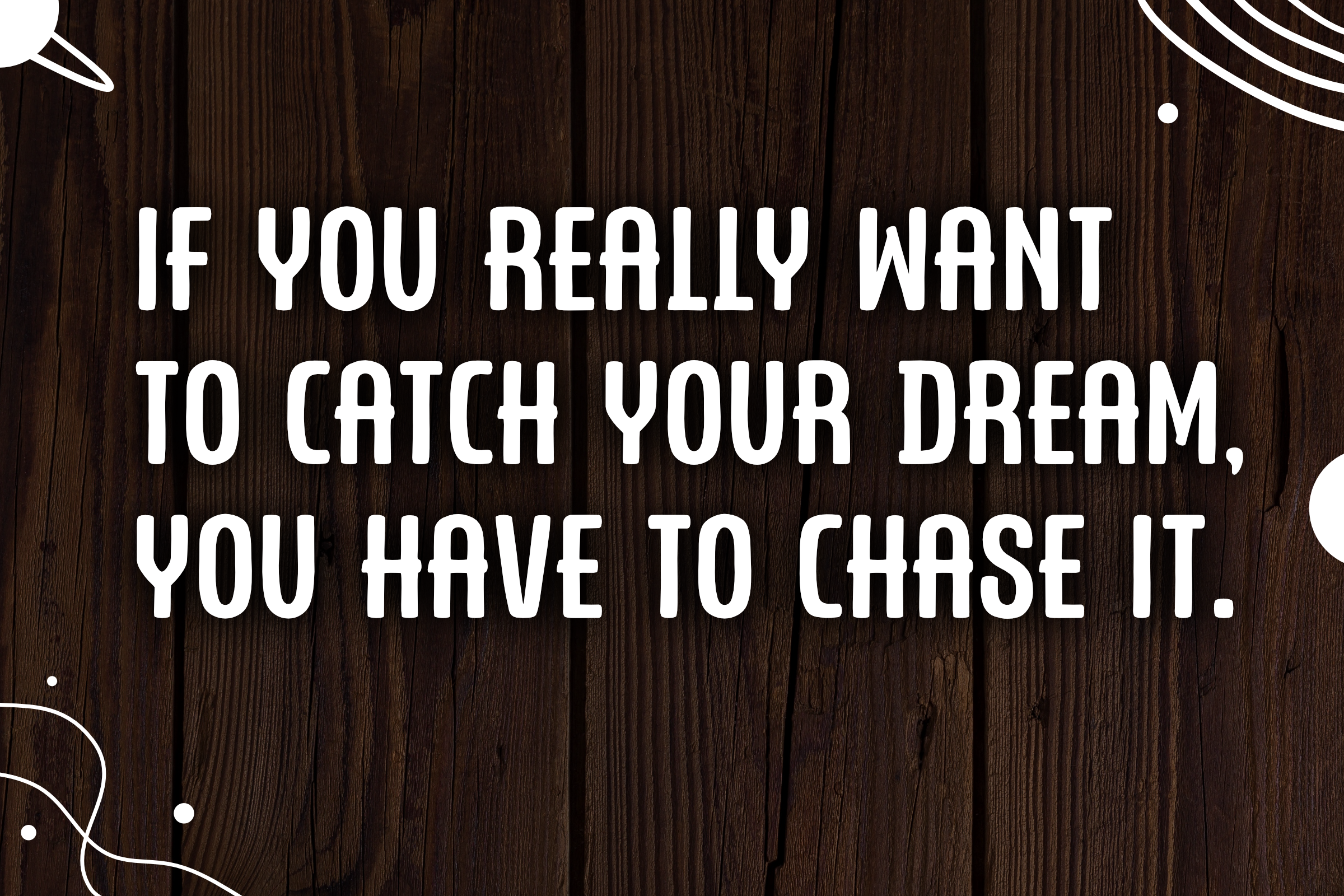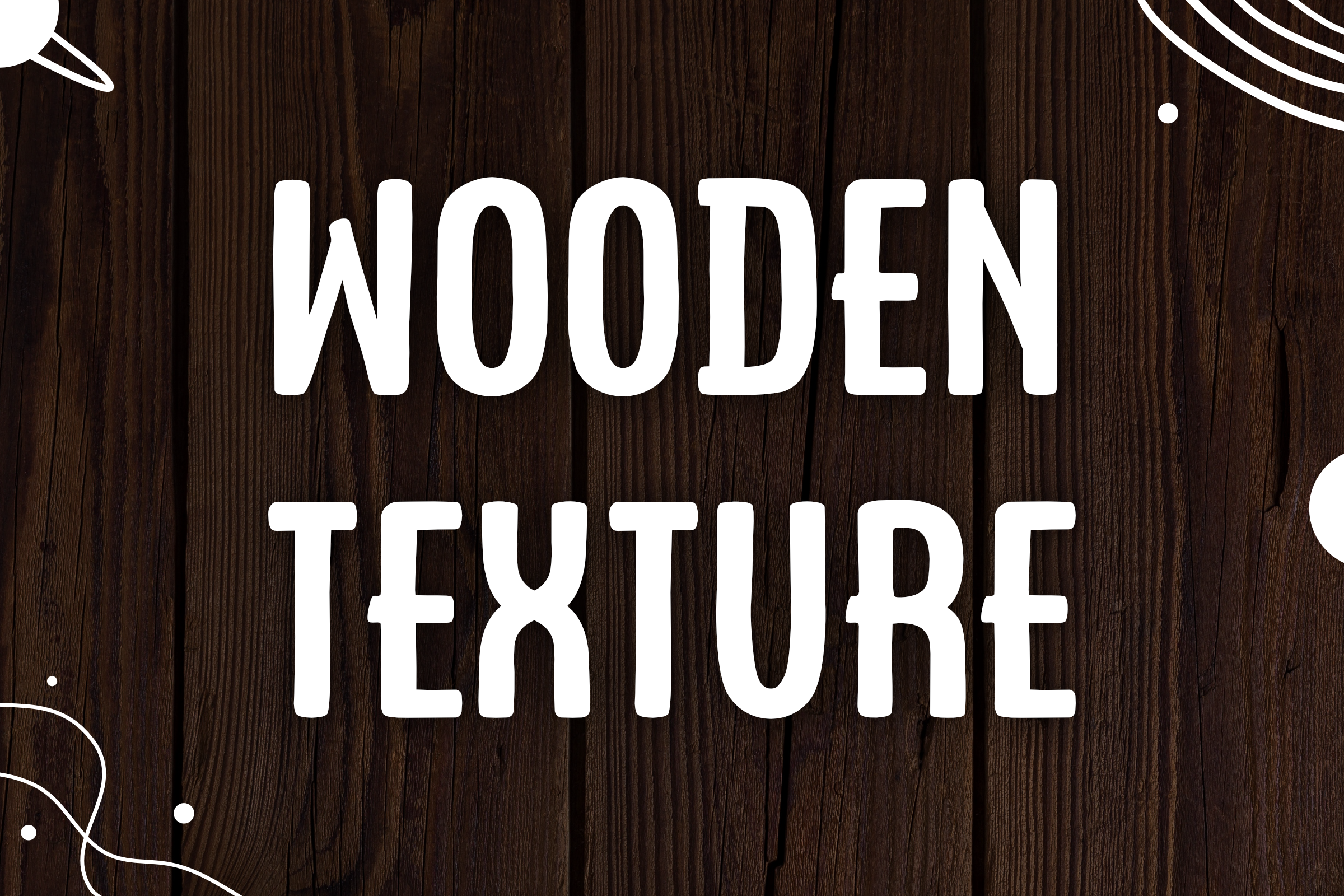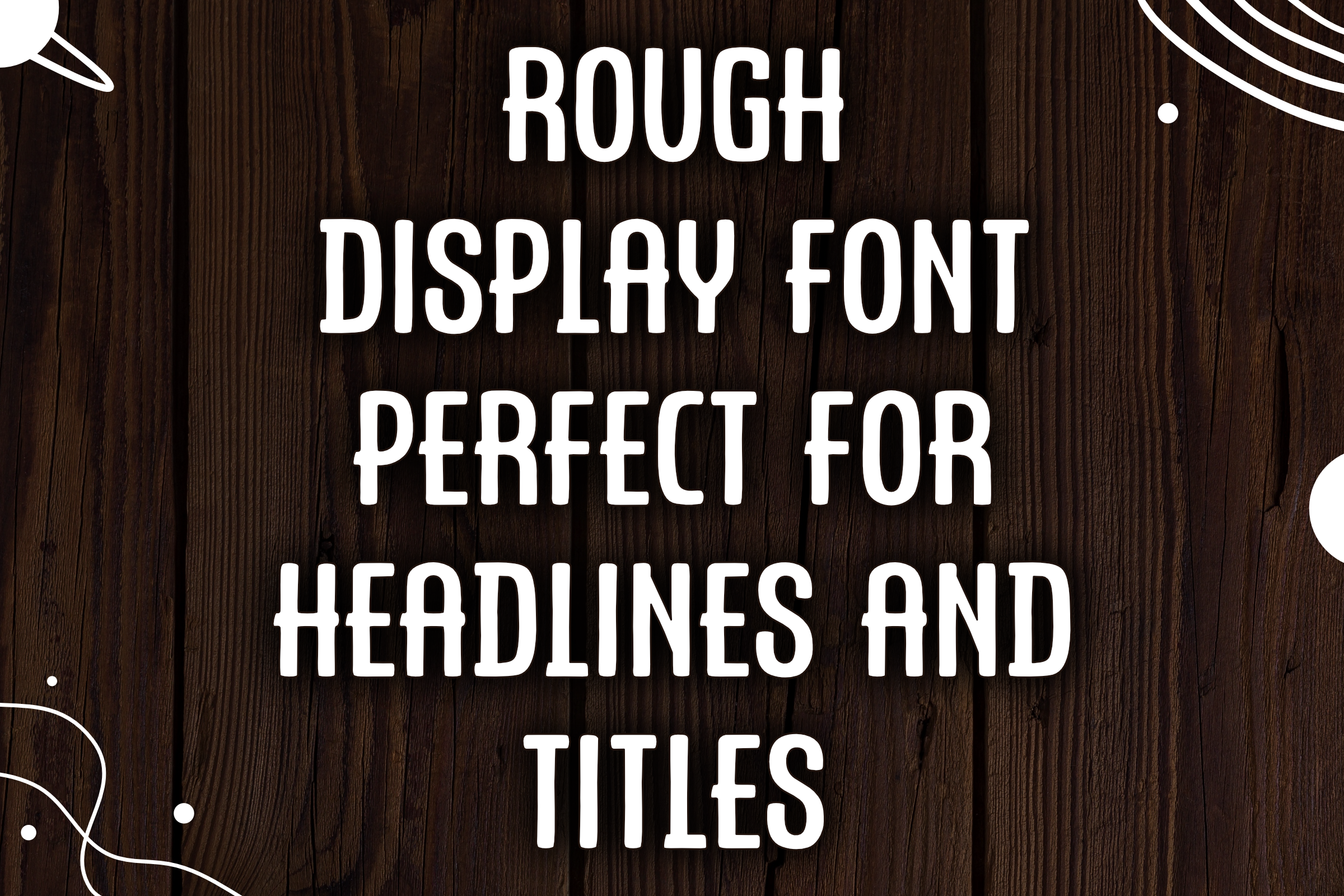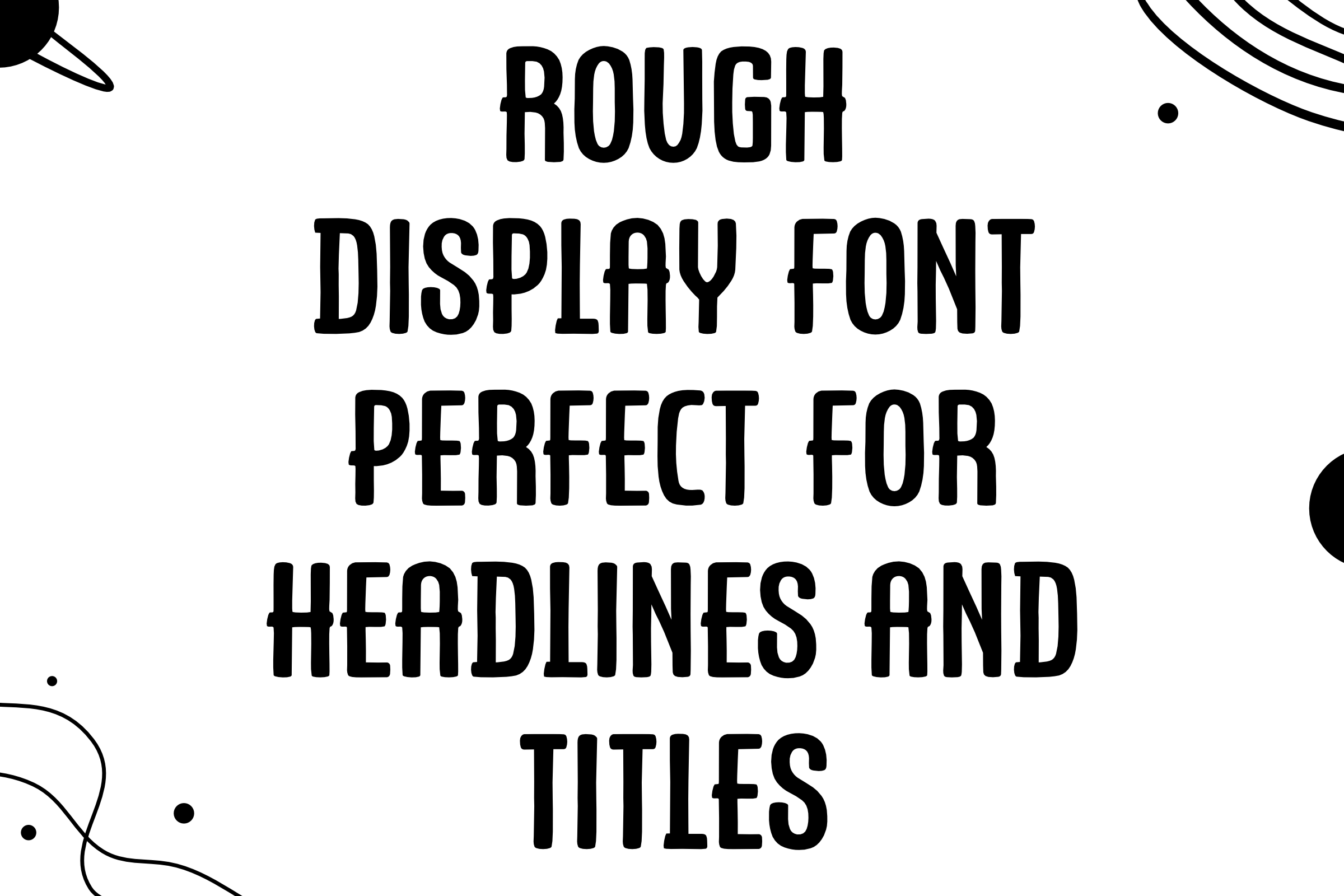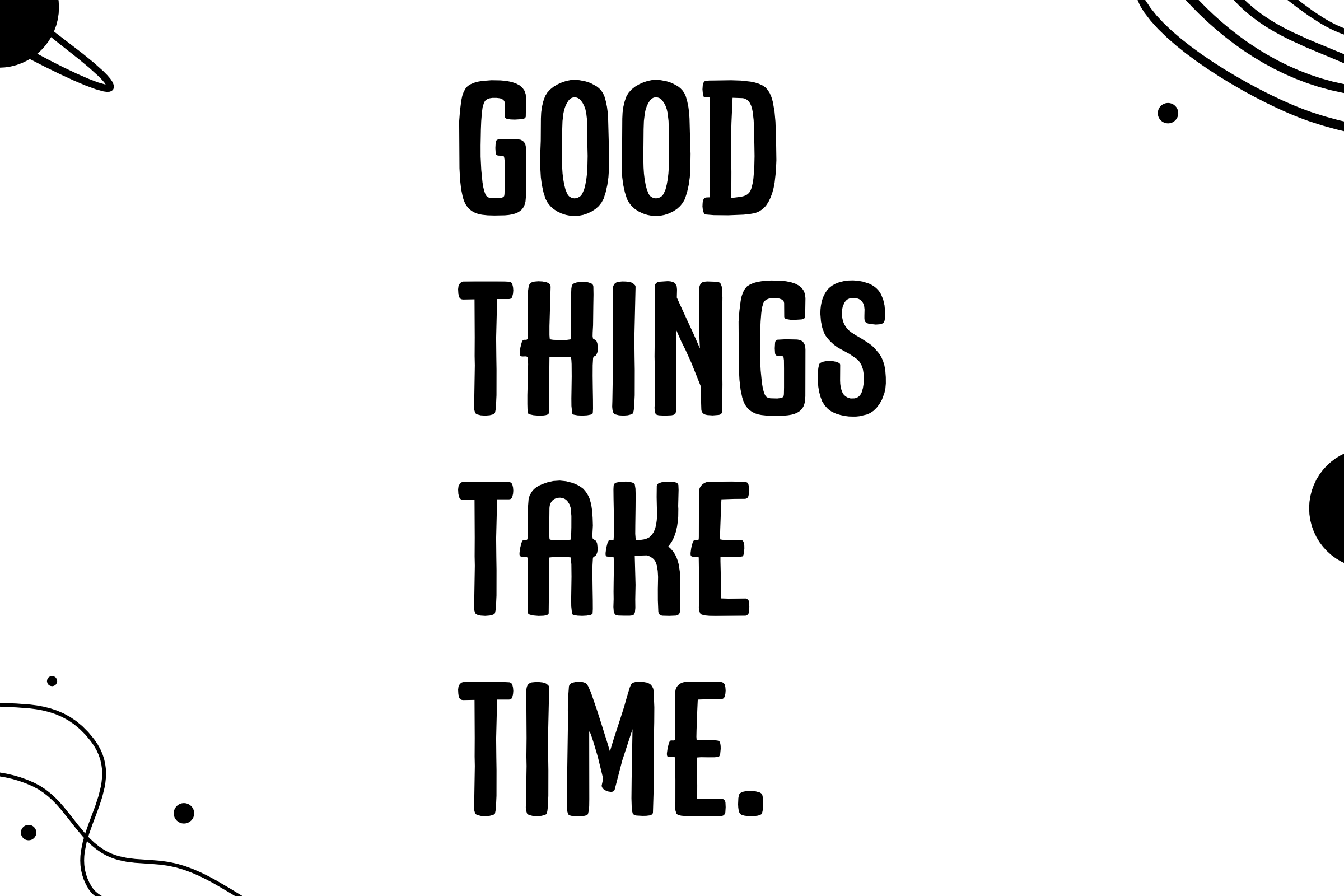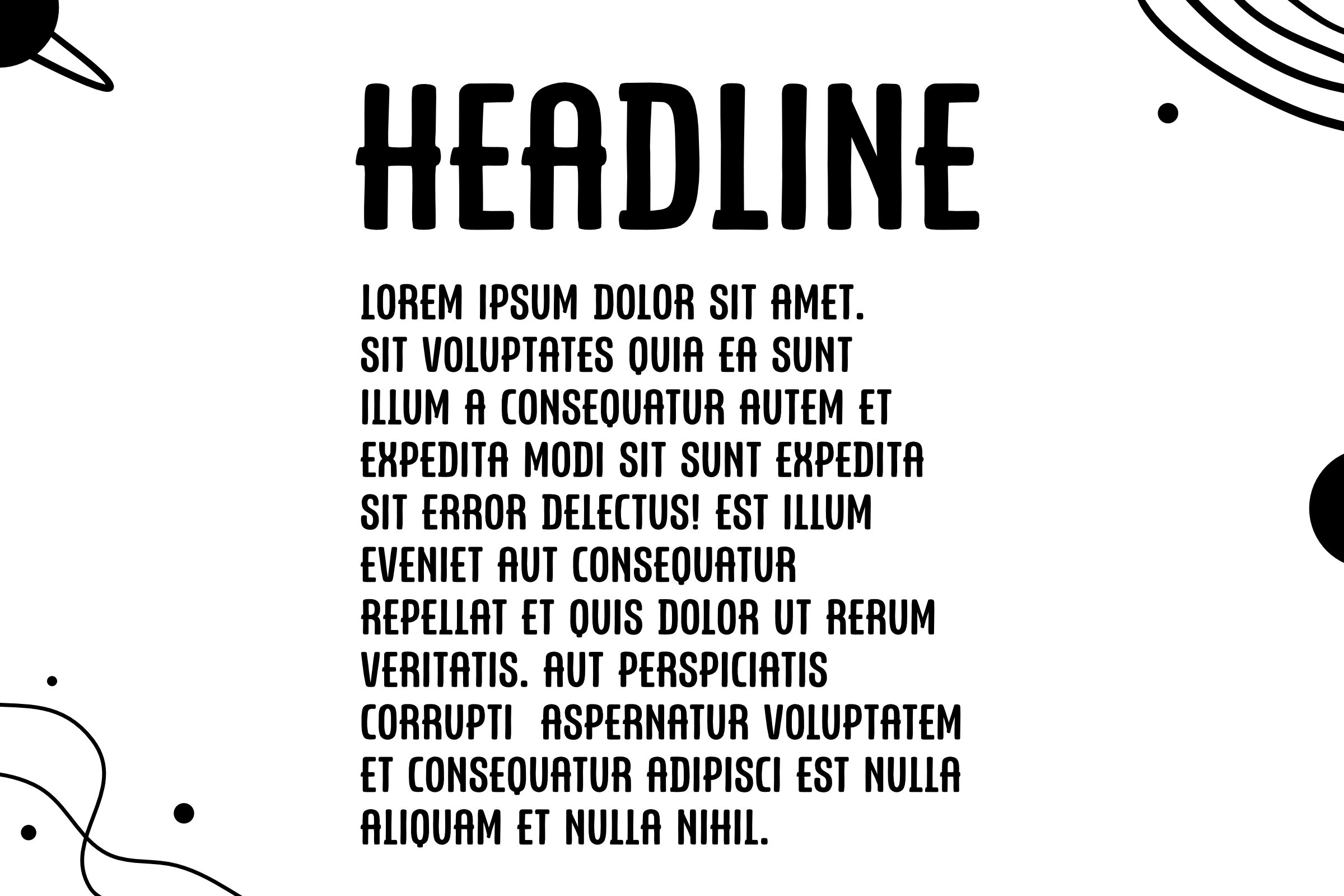
Stellar Rough Display Font by Radesigns21 | Creative Market
Stellar is a rough display font intended for creating bold and raw headlines and titles. It can be used in projects that need to achieve an unrefined, serious look. Its extending bars add more character to its appearance making it look extra rough and unpolished. | Stellar Rough Display Font | RADesigns21